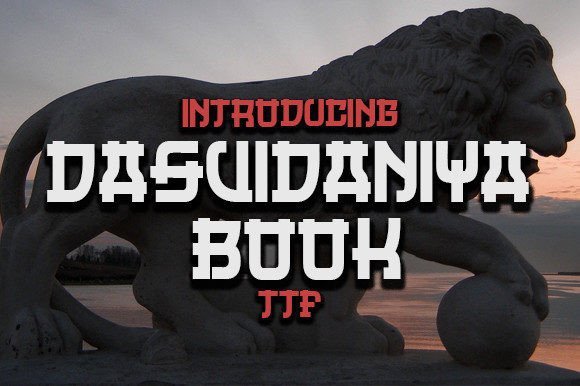
Discover the Timeless Elegance of Dasvidaniya Book Font
Have you ever found yourself pouring over a vintage photograph, captivated by the intricate details and charming aesthetic of a bygone era? For designers, moments like these can be a source of inspiration, sparking ideas for new projects and creative expressions. For those seeking to infuse their work with a touch of classic sophistication, look no further than Dasvidaniya Book Font.
This charming display font is a love letter to Russian design, with its distinctive letterforms evoking a sense of elegance and whimsy. Whether you’re designing invitations, headlines, or branding materials, Dasvidaniya Book Font brings a touch of warmth and nostalgia to your typography. As a valuable addition to any designer’s toolkit, this font is perfect for those looking to add a unique and captivating element to their creative projects.
Dasvidaniya Book Font Key Features
- Unique Characteristics: Dasvidaniya Book Font features a unique blend of Cyrillic and Latin script styles, making it suitable for languages that use these scripts.
- Font Weight and Style: Dasvidaniya Book Font is available in 6 font weights (Light, Regular, Medium, Bold, Extra Bold, and Black) and 2 font styles (Regular and Italic).
- Font Width and Height: The font has an average width and height, making it suitable for body text and paragraphs, with an x-height of approximately 45% of the font size.
Dasvidaniya Book Font Review
As a designer, I was excited to try out the Dasvidaniya Book Font, and overall, I’m quite impressed. Here’s what I liked:
- ✨ The font has a beautiful, unique feel to it. It’s a great choice for anyone looking to add some personality to their project.
- ✨ The font is highly legible, making it perfect for body text or titles where you want to grab attention.
- ✨ The font comes in a wide range of weights and styles, giving you plenty of options to customize your design.
- ⚠️ The font may not be the best choice for very formal or professional projects. It’s a bit too playful and casual for those types of designs.
Overall, I think the Dasvidaniya Book Font is a great choice for anyone looking for a unique and stylish font. While it may not be perfect for every project, it’s definitely worth considering if you’re looking to add some personality to your design.
The “Dasvidaniya Book Font” is ideal for:
- Book covers and book design